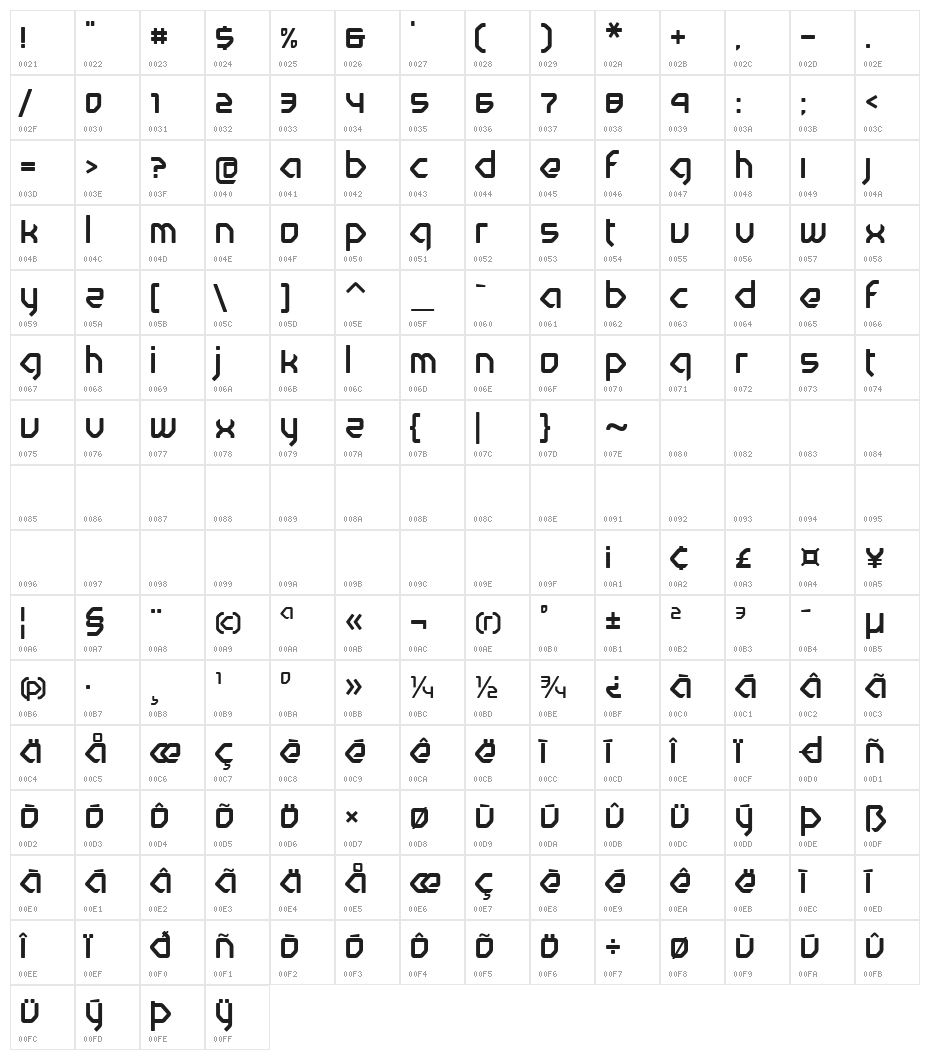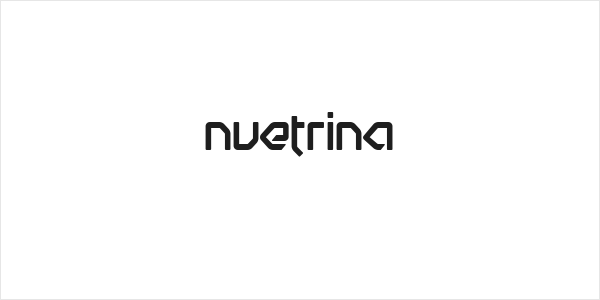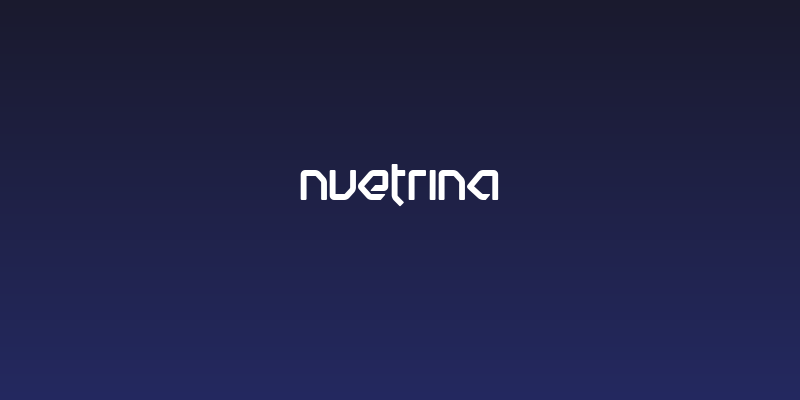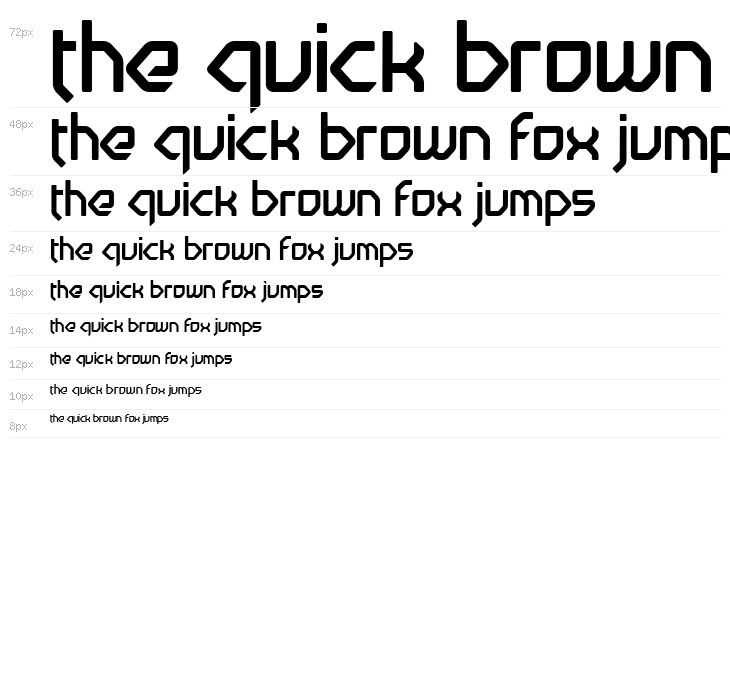
Nuetrina Font
Nuetrina Description
This font features a futuristic and geometric design, characterized by sharp angles and clean lines. The uppercase and lowercase letters maintain a consistent height, creating a uniform appearance. The numerals and special characters are designed to match the angular style, providing a cohesive look across all glyphs. The font's unique structure makes it stand out, with a modern aesthetic that is both bold and distinctive. Its design is well-suited for projects that require a contemporary and edgy feel.